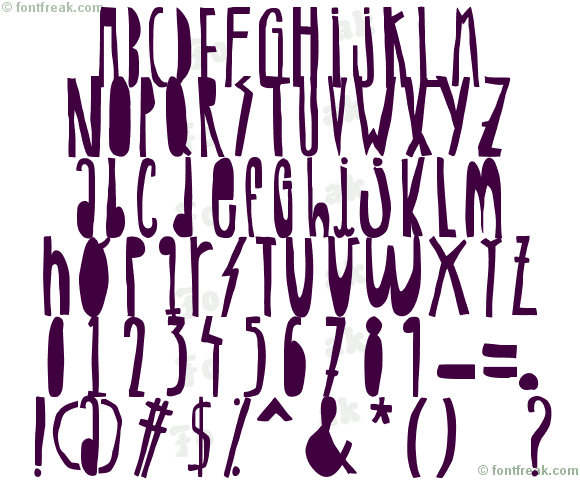
Woodcutter Gigantismo
About Woodcutter Gigantismo
Woodcutter Gigantismo, crafted by the talented woodcutter Manero, is a captivating display typeface that brings a unique character to any design project. This font stands out within the decorative category, featuring an eclectic mix of playful and bold letterforms. The strokes are thick and rounded, creating a striking visual presence that commands attention. The contrast is moderate, lending a sense of balance while enhancing legibility. The spacing between characters is thoughtfully designed, allowing the letters to breathe and adding to the overall aesthetic.
Ideal for a variety of creative applications, Woodcutter Gigantismo shines in settings such as eye-catching movie posters, whimsical children's book covers, and vibrant restaurant menus that need a touch of personality. Its playful nature makes it a perfect choice for branding projects aimed at capturing a youthful and energetic audience. Graphic designers, small business owners, and content creators will find this font particularly useful for crafting memorable marketing materials that resonate with their target demographic.